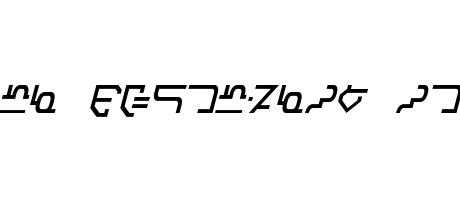
Modern Destronic
Modern Destronic Italic: A futuristic, bold italic typeface with a strong, angular slant. Its geometric forms suggest speed and dynamism, and the sharp edges convey a sense of precision and power. Each character is a sleek, stylized design, hinting at a science fiction aesthetic.